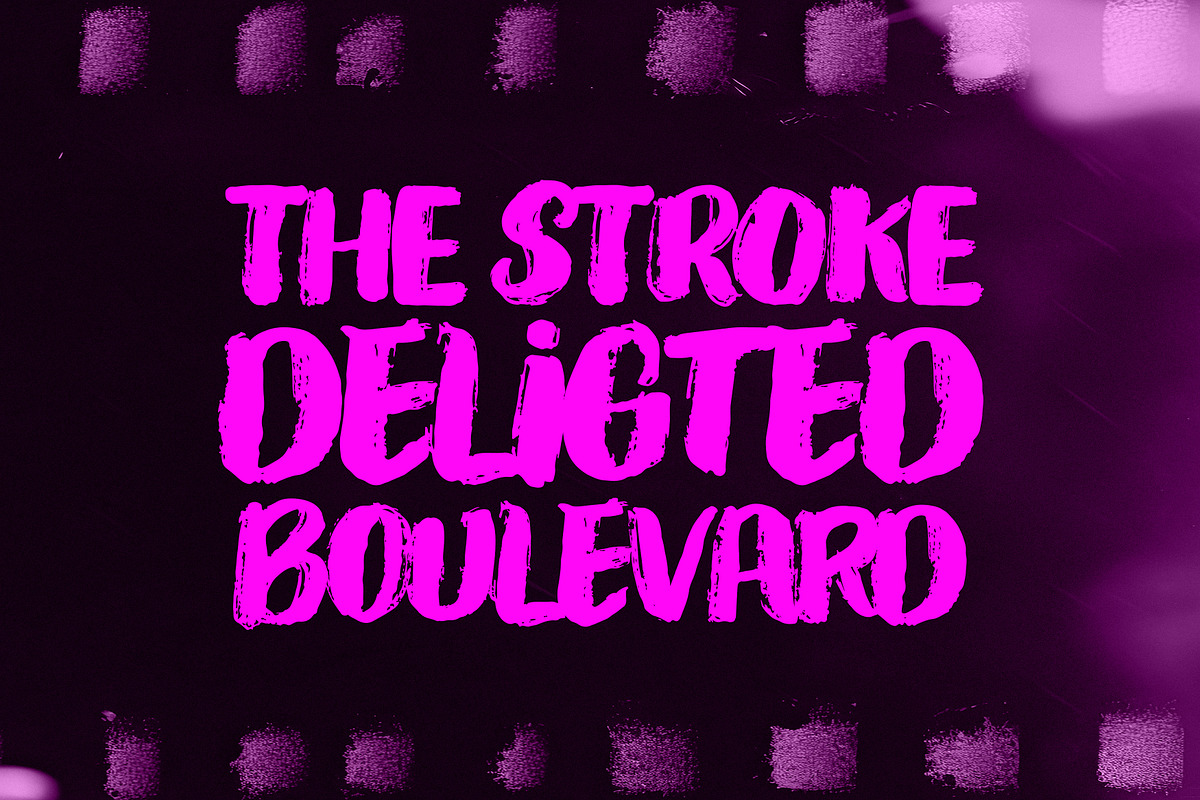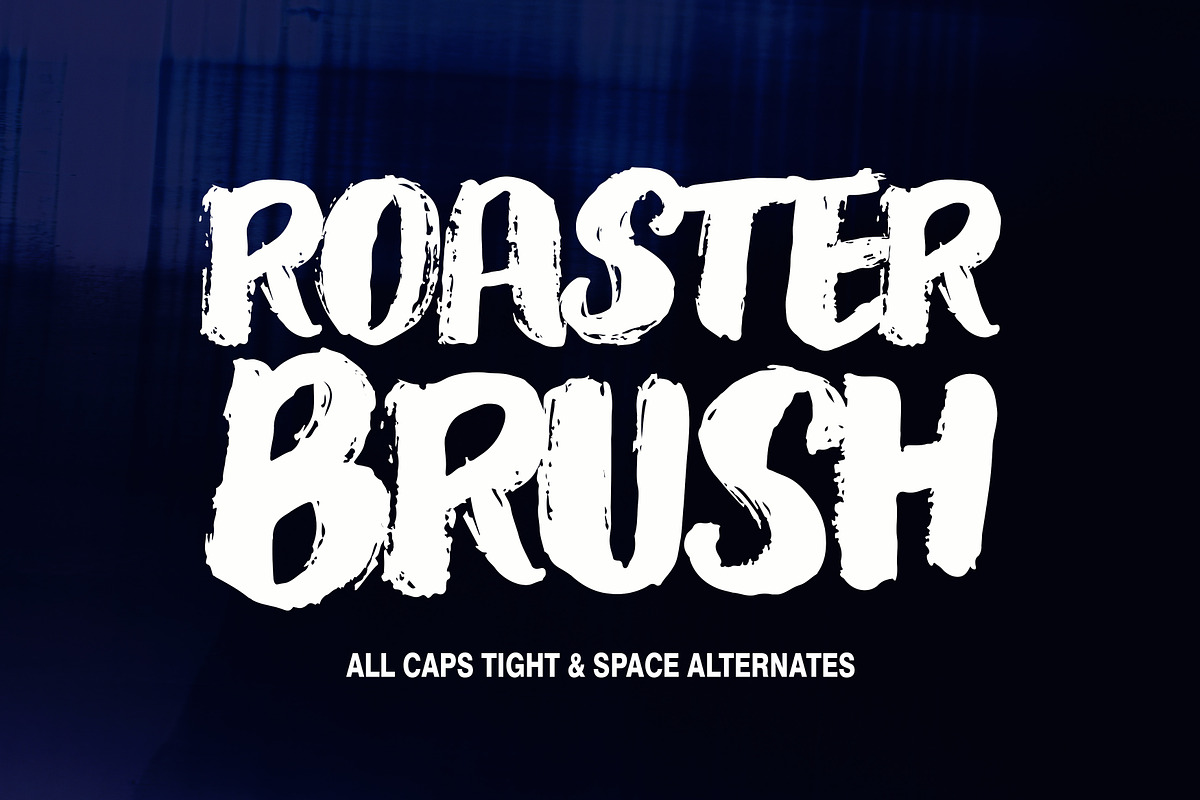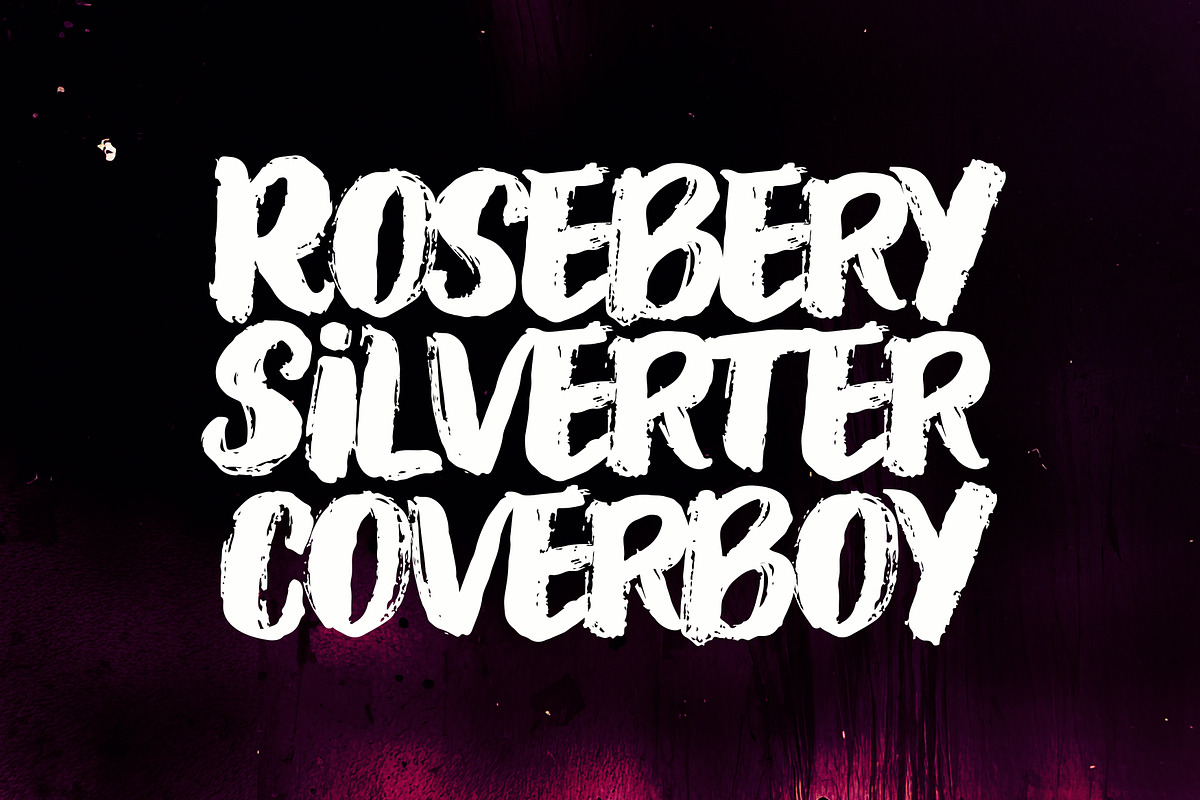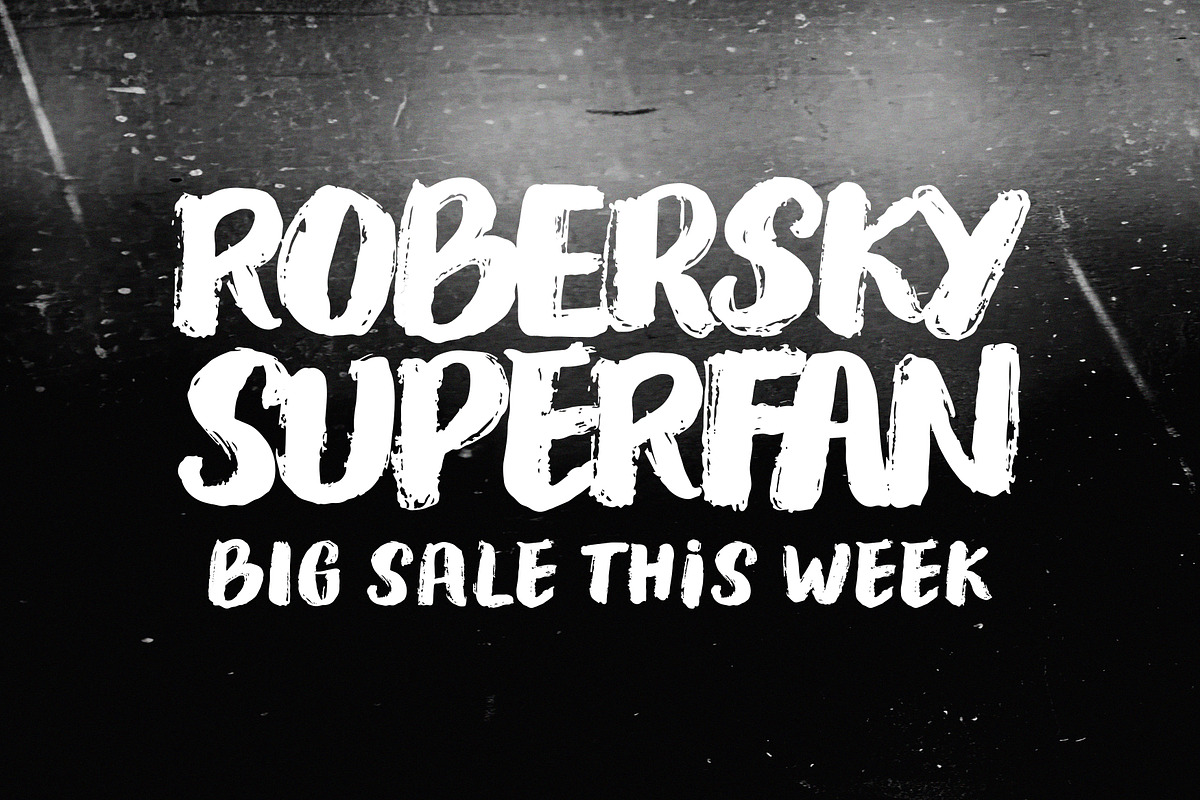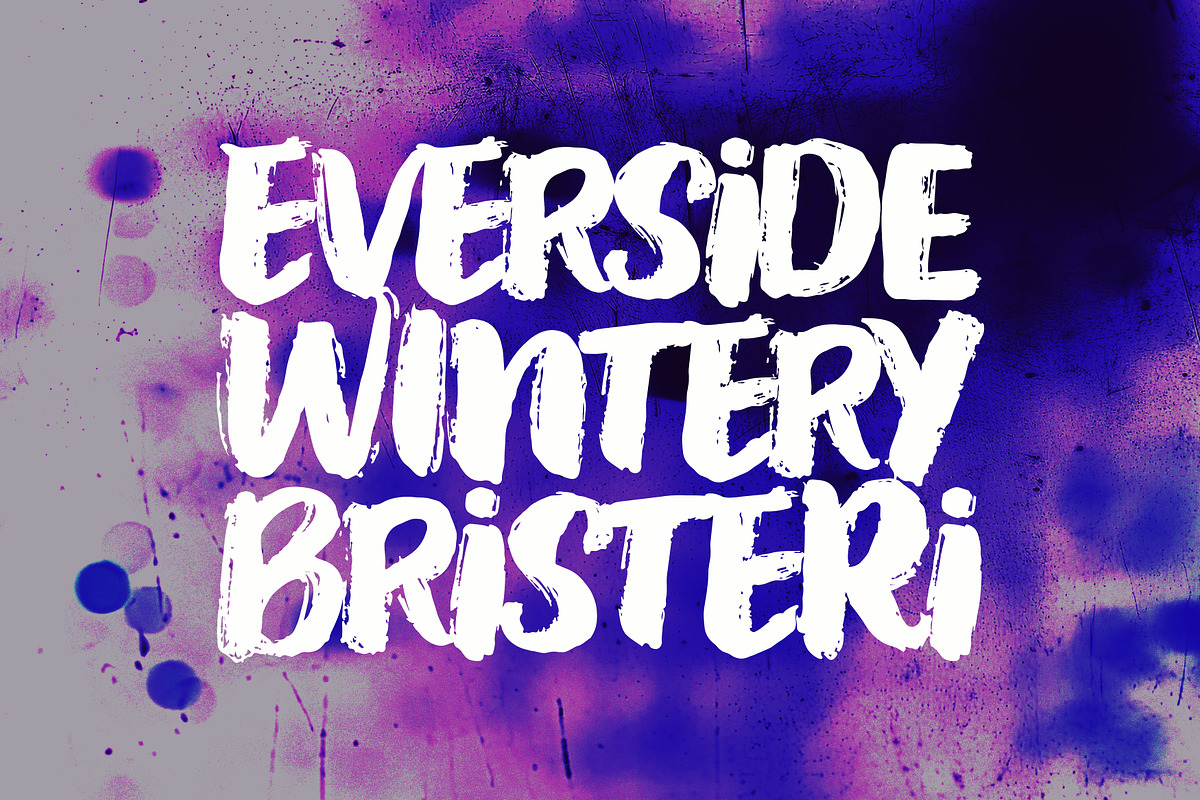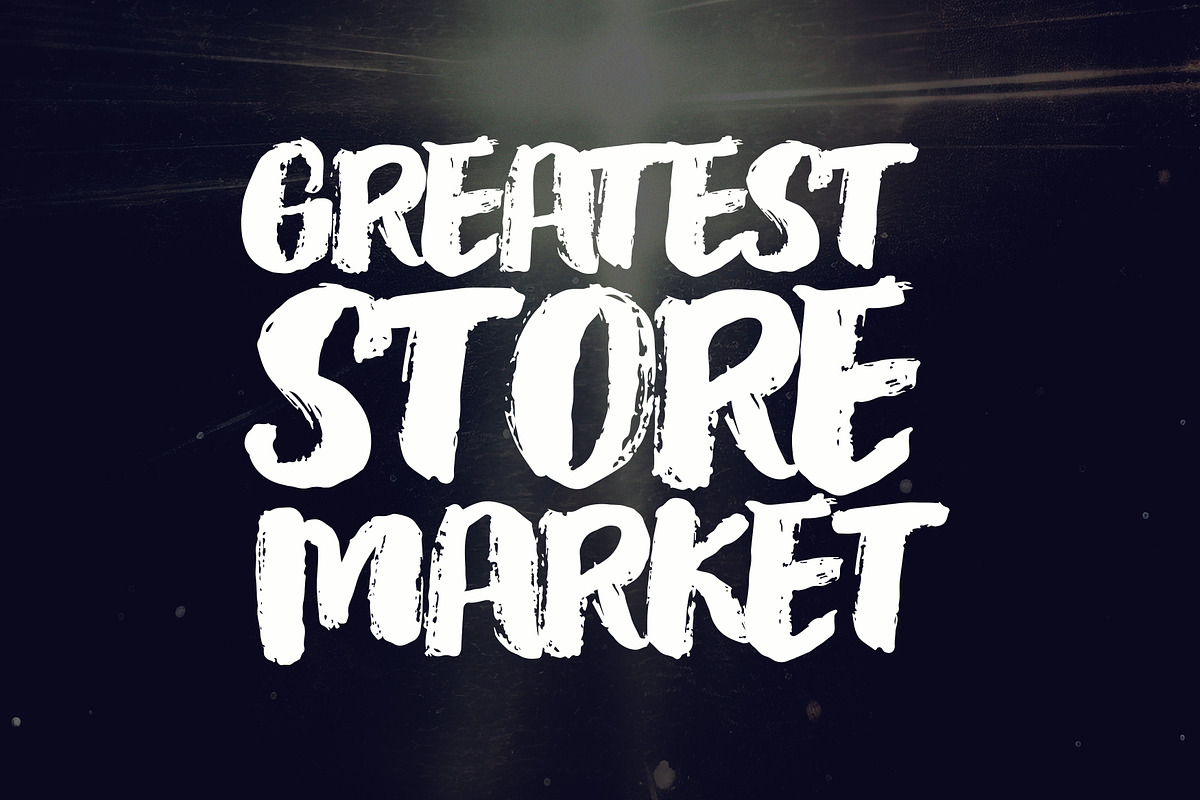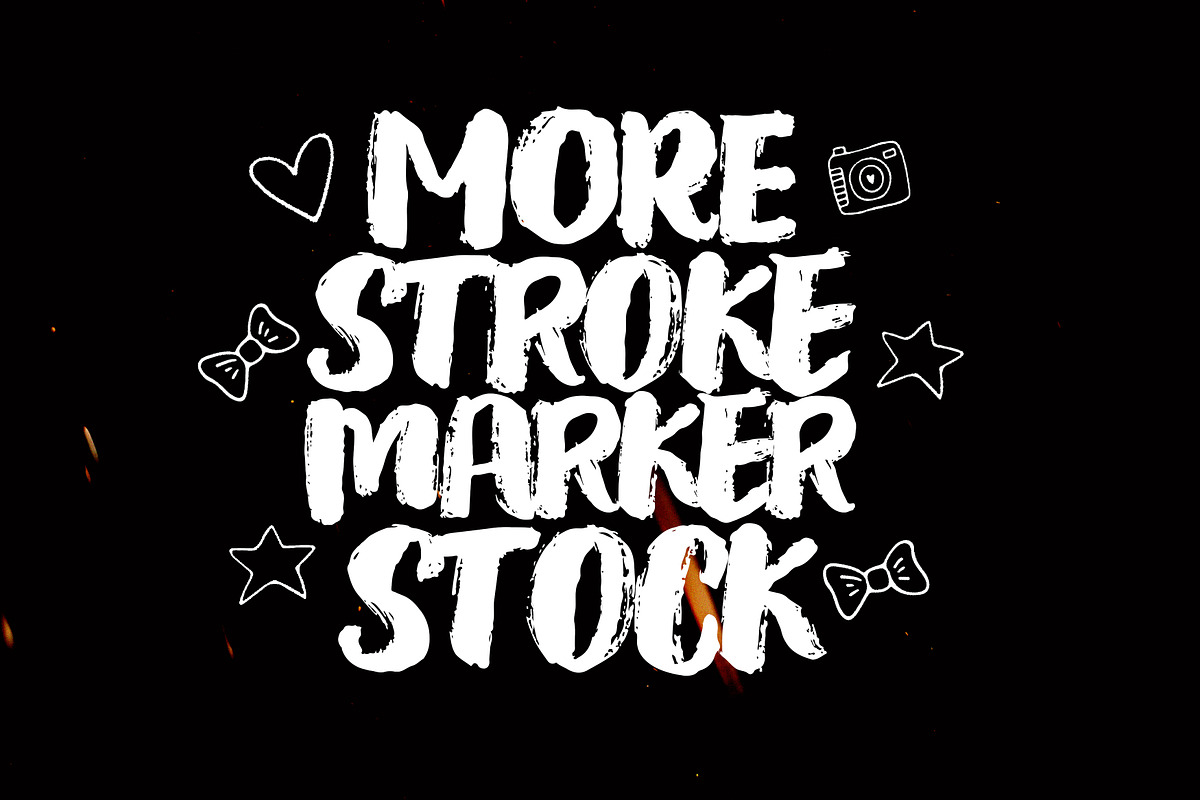
Roaster Brush Collection
Art ink brush style brush strokes rough messy natural too, can make a stylish typeface, font is very suitable for use in apparel screen printing, logo or album cover. This font comes with four styles of brush Roaster and Handson hand drawn characters uppercase including Alternates, uppercase, lowercase, numbers, punctuation, currency, and Accents (you will be able to collect 6 fonts in a single package) immediately get a price discount while great time!